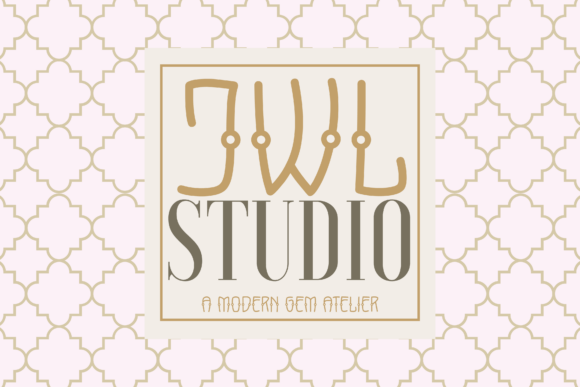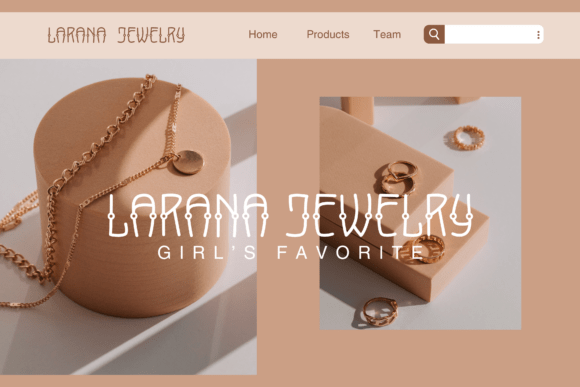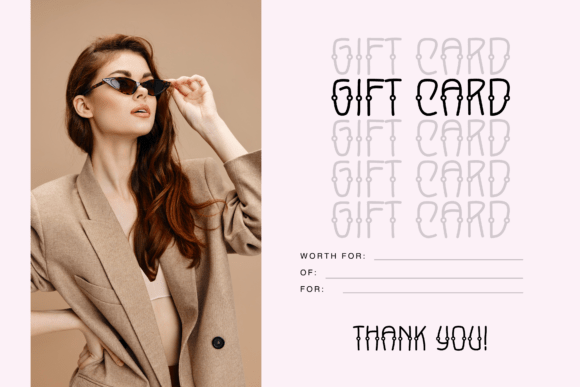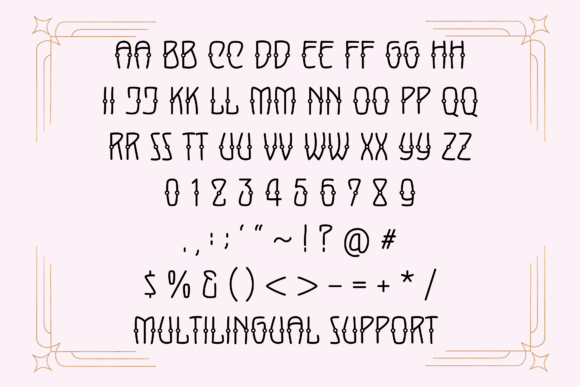
Introduction to Pearlina Font Font
Fonts play a crucial role in design, and the Pearlina Font font is a typeface that brings both character and versatility to any project. Whether you’re working on a branding project, a website, or a print design, the Pearlina Font font offers a unique style that can elevate your work.
Pearlina is a revival of a forgotten type style, thoughtfully reimagined to preserve its original essence.
The addition of tiny pearl-like details on each letter symbolizes something preciousโsomething worth preserving Elegant and refined, this font is perfect for social media graphics, creative projects, branding, handmade crafts, invitations, and more.
Key Features of Pearlina Font Font
- โ High-quality typeface designed for professional use
- โ Includes a wide range of glyphs and characters
- โ Ideal for logos, branding, websites, and print
Why Choose Pearlina Font Font?
The Pearlina Font font is more than just a typeface โ it’s a design tool that helps you communicate your message with style and clarity. Its unique character set and versatile design make it suitable for a wide range of applications, from elegant invitations to bold headlines.
With its carefully crafted letterforms and balanced proportions, the Pearlina Font font ensures readability and visual appeal across all mediums.
What makes Pearlina Font font special?
The Pearlina Font font stands out with its unique design, exceptional readability, and versatility across various design applications.